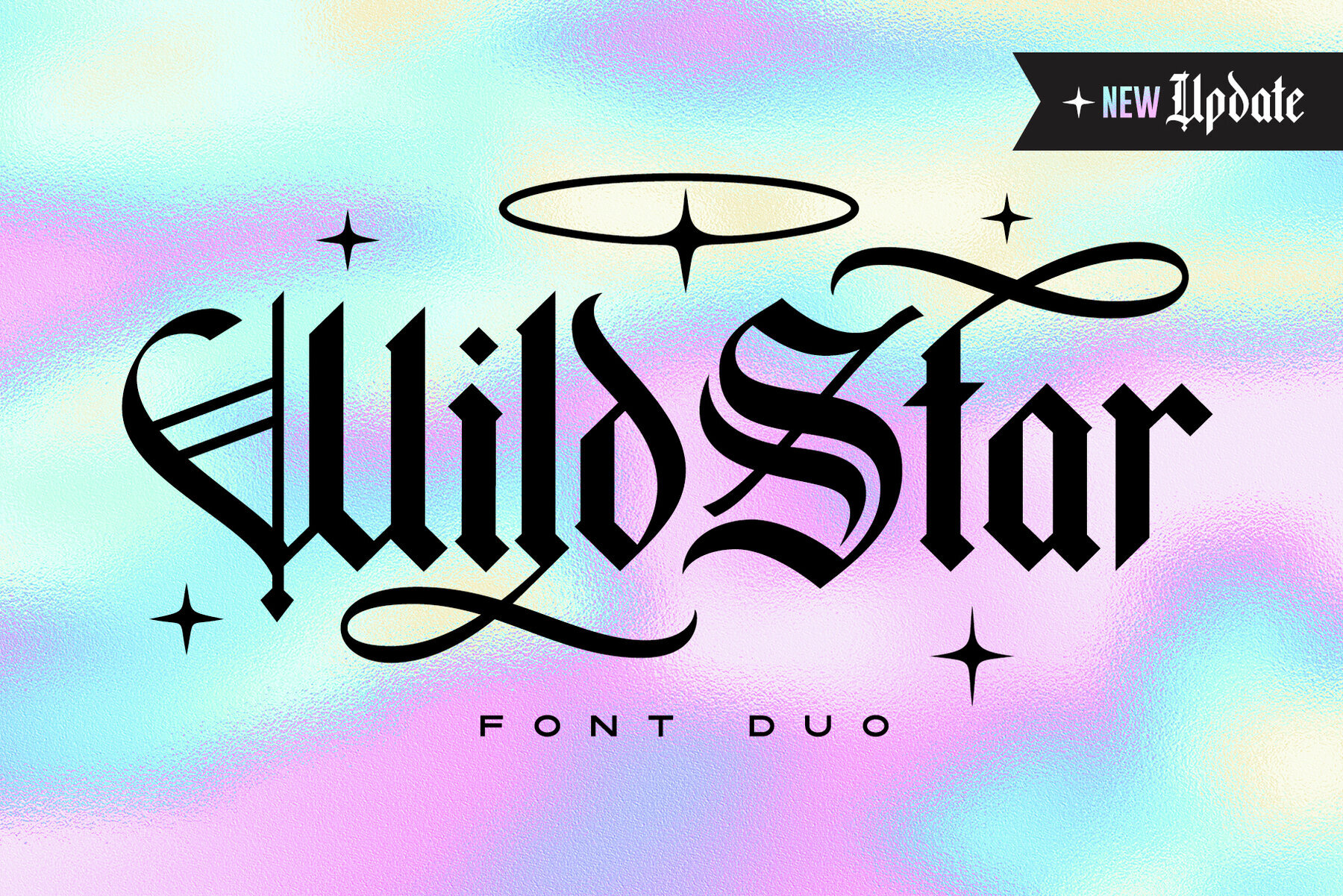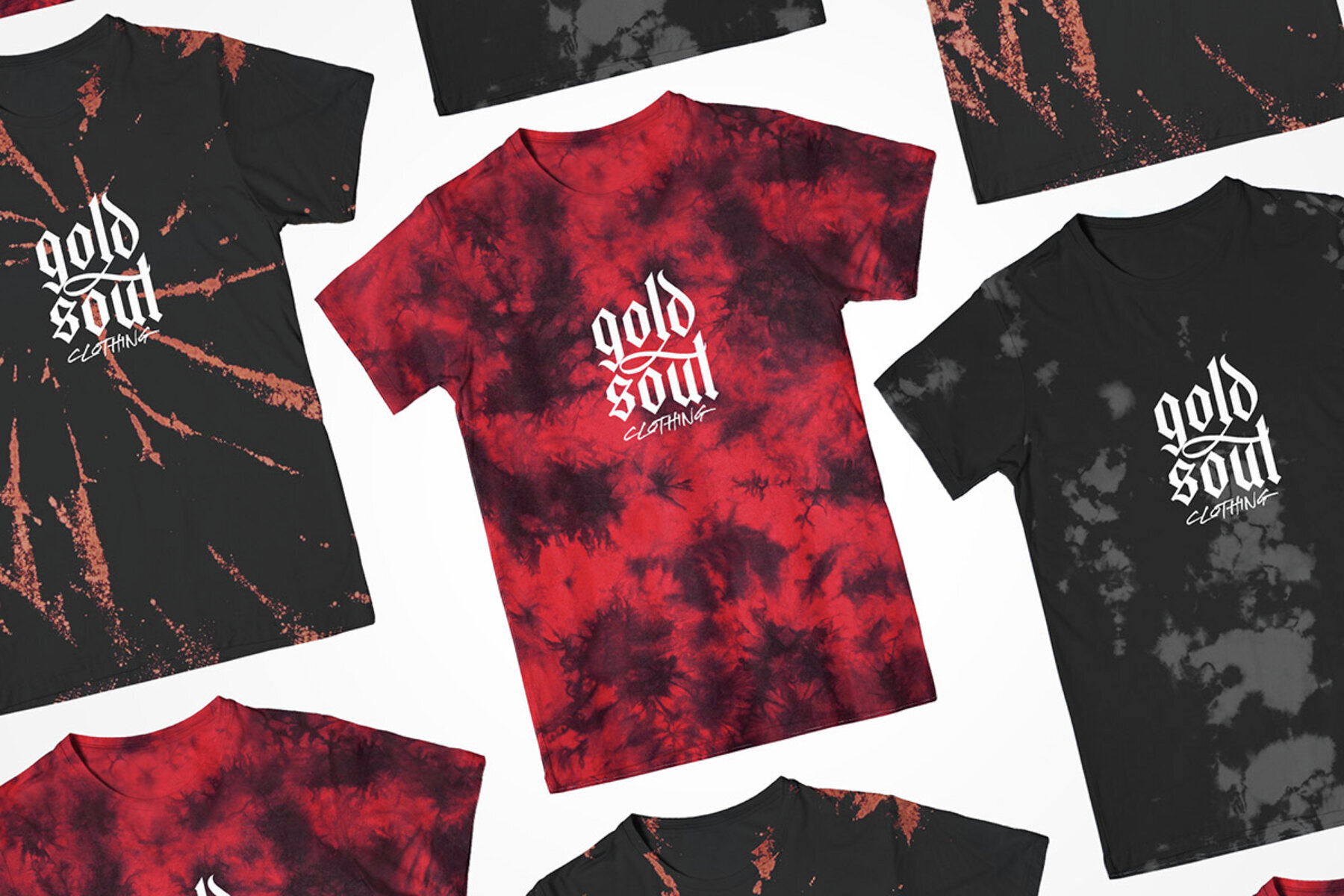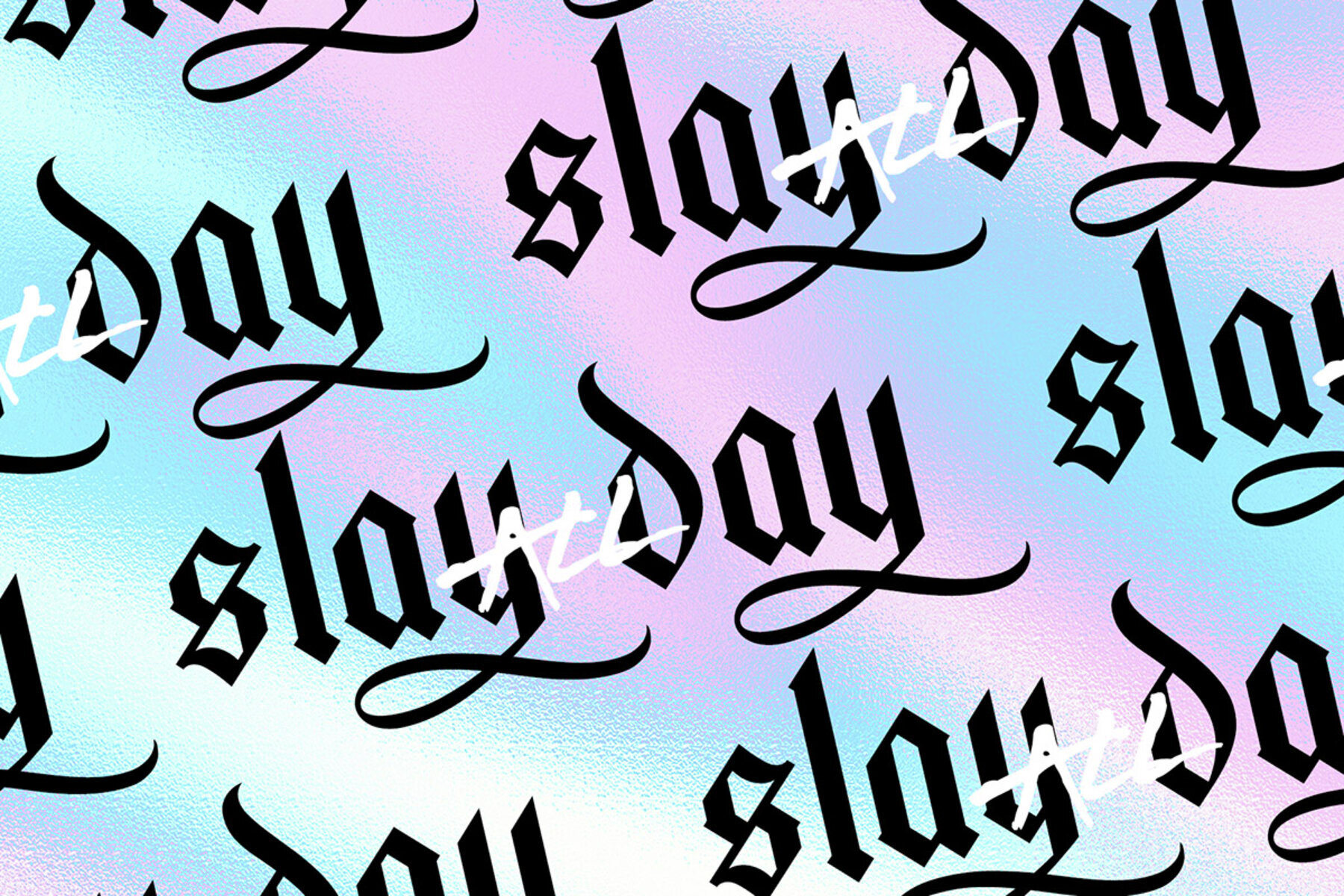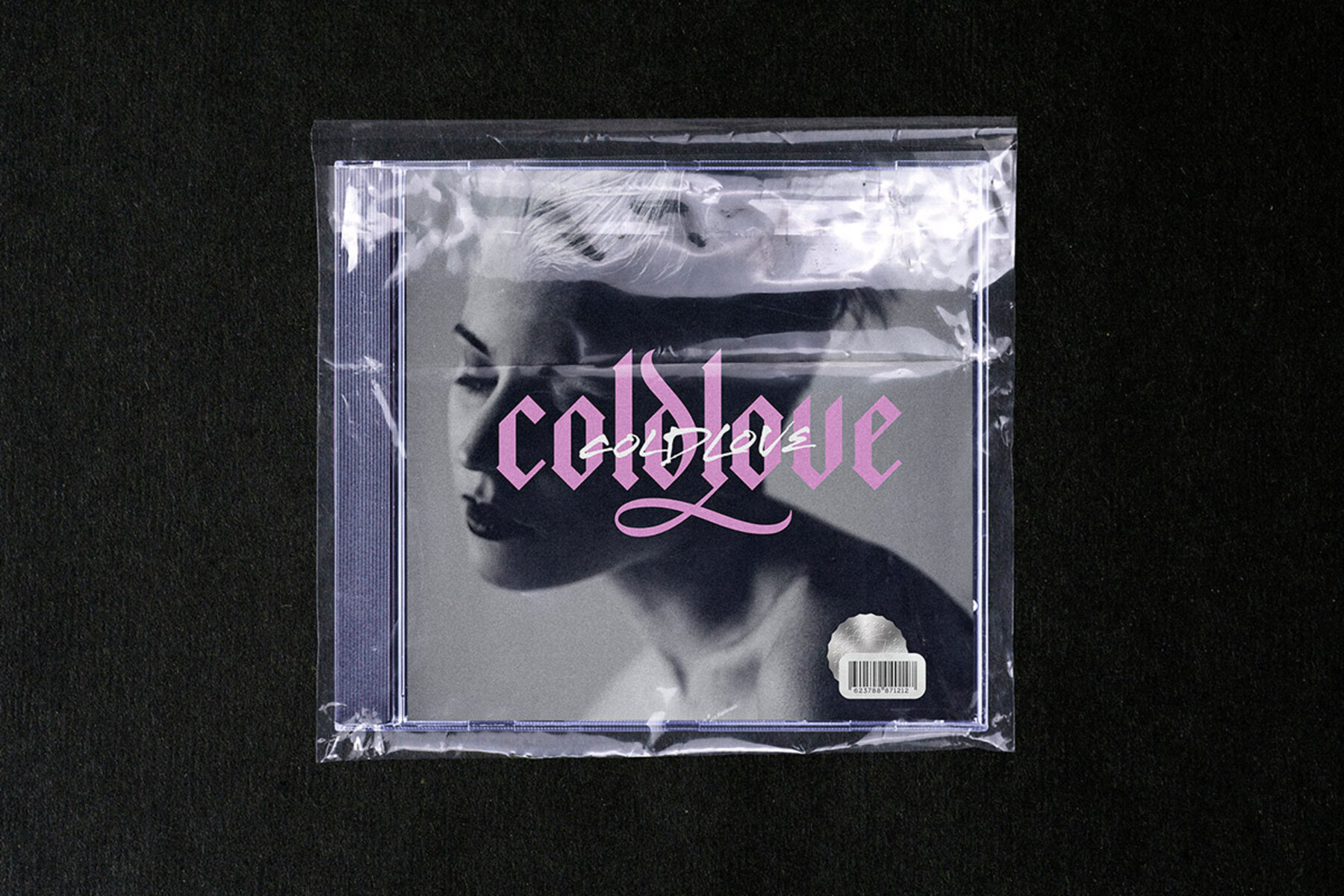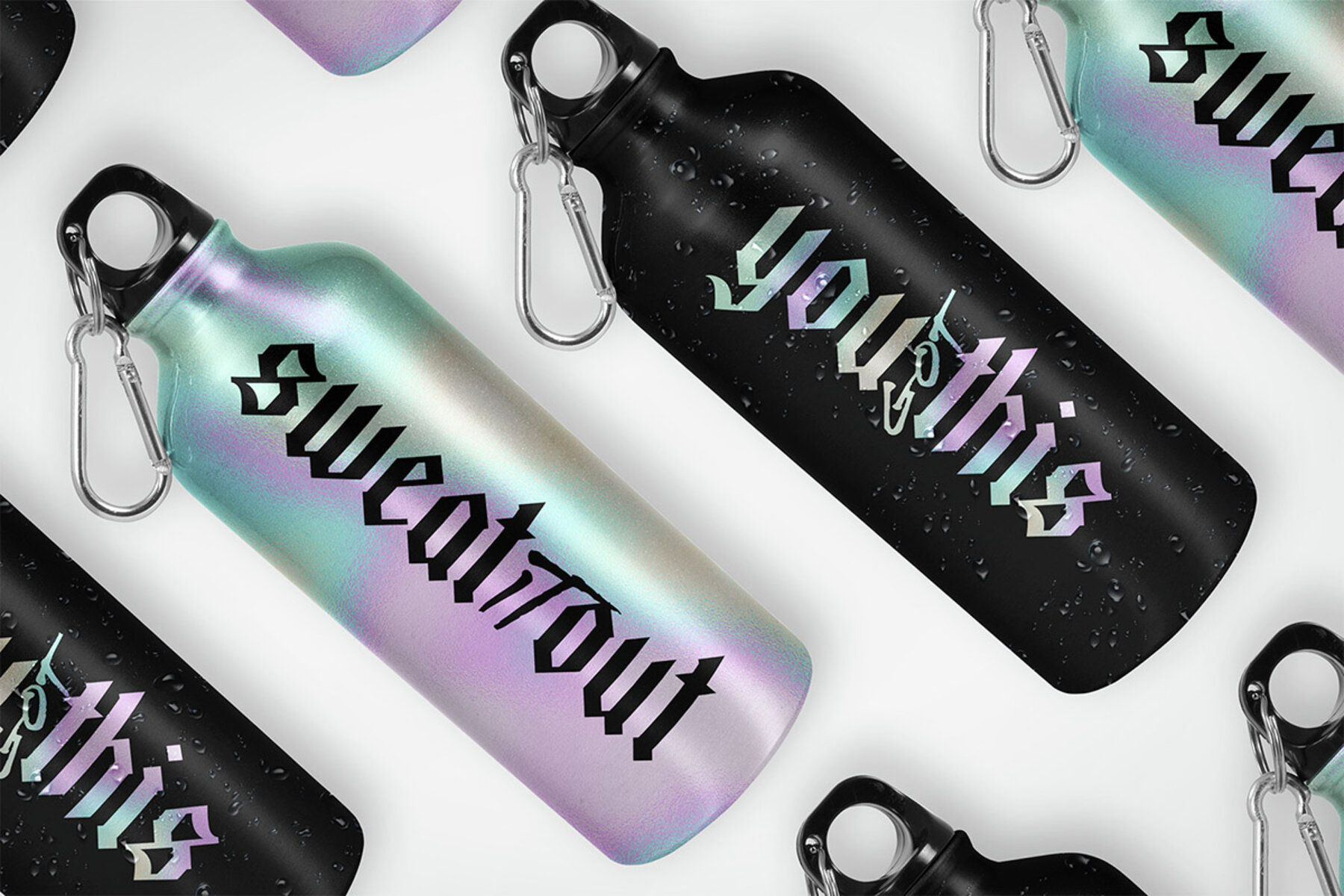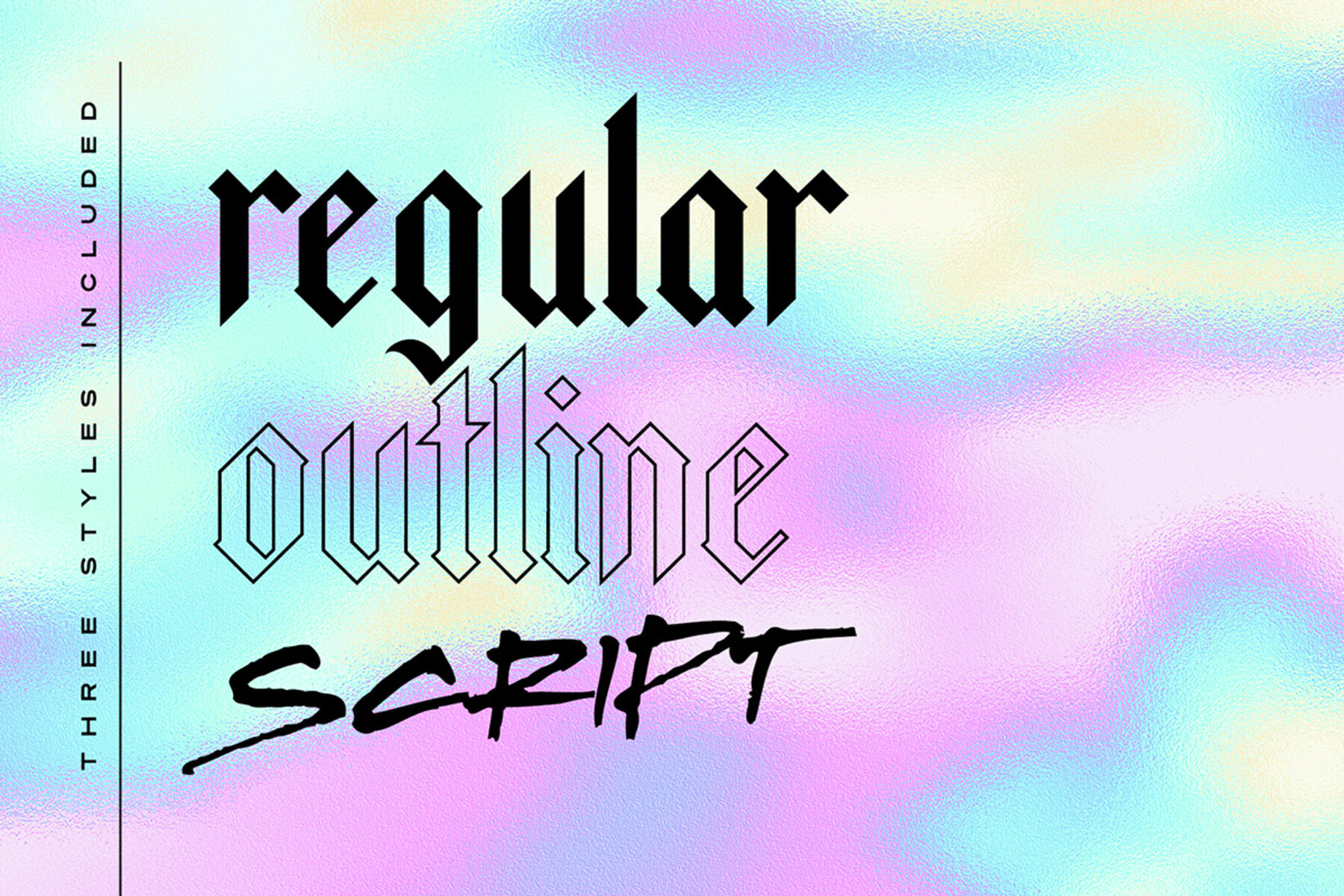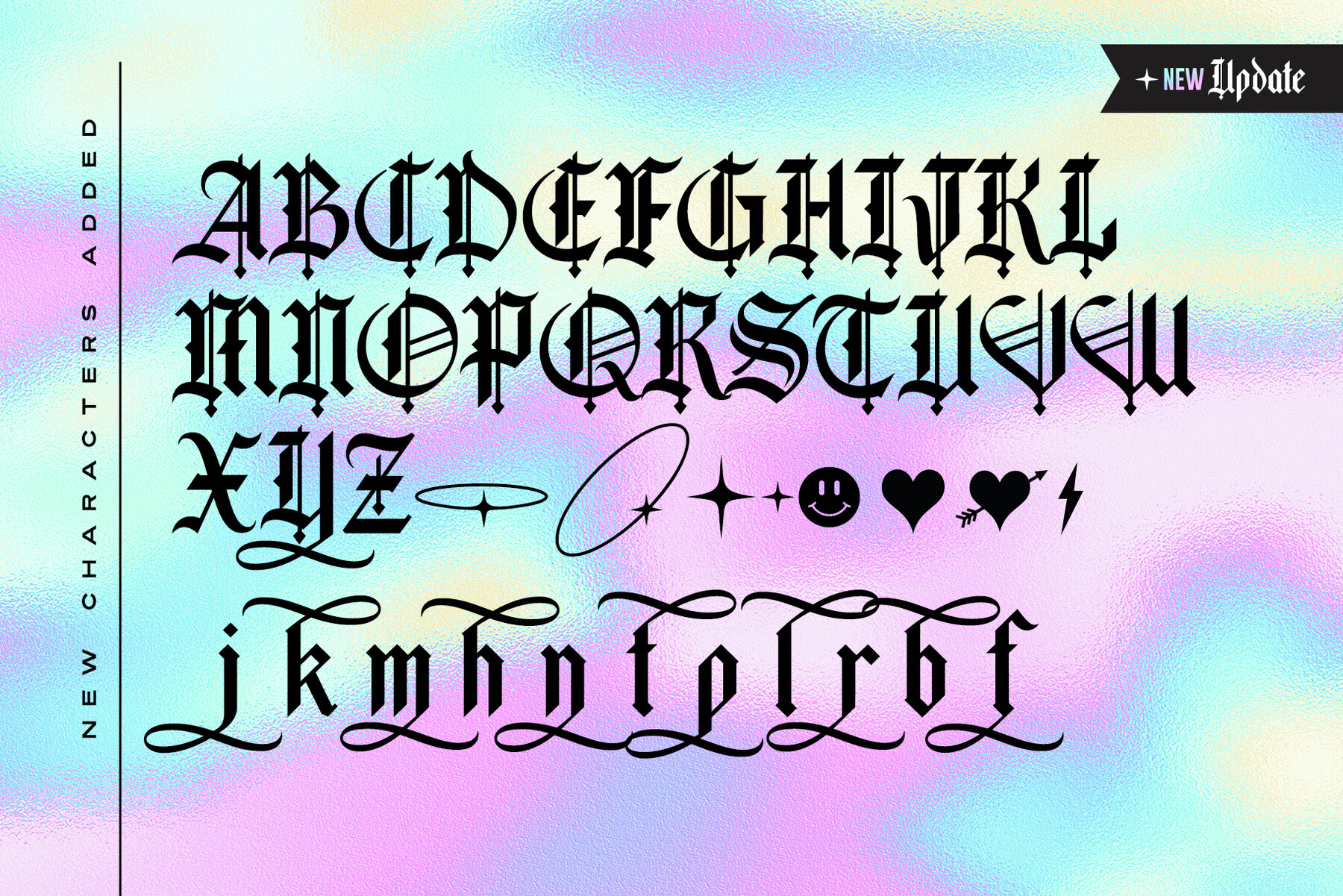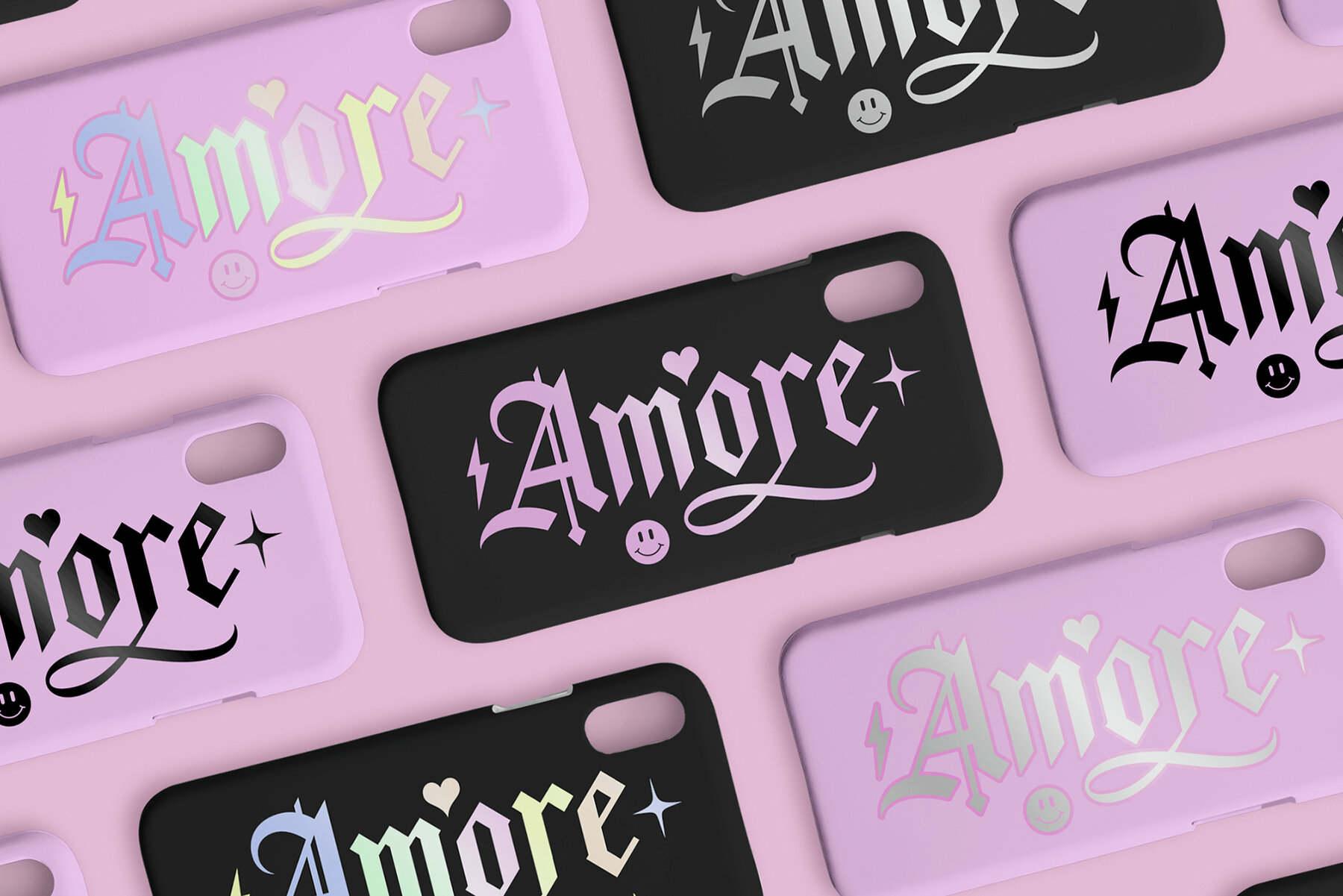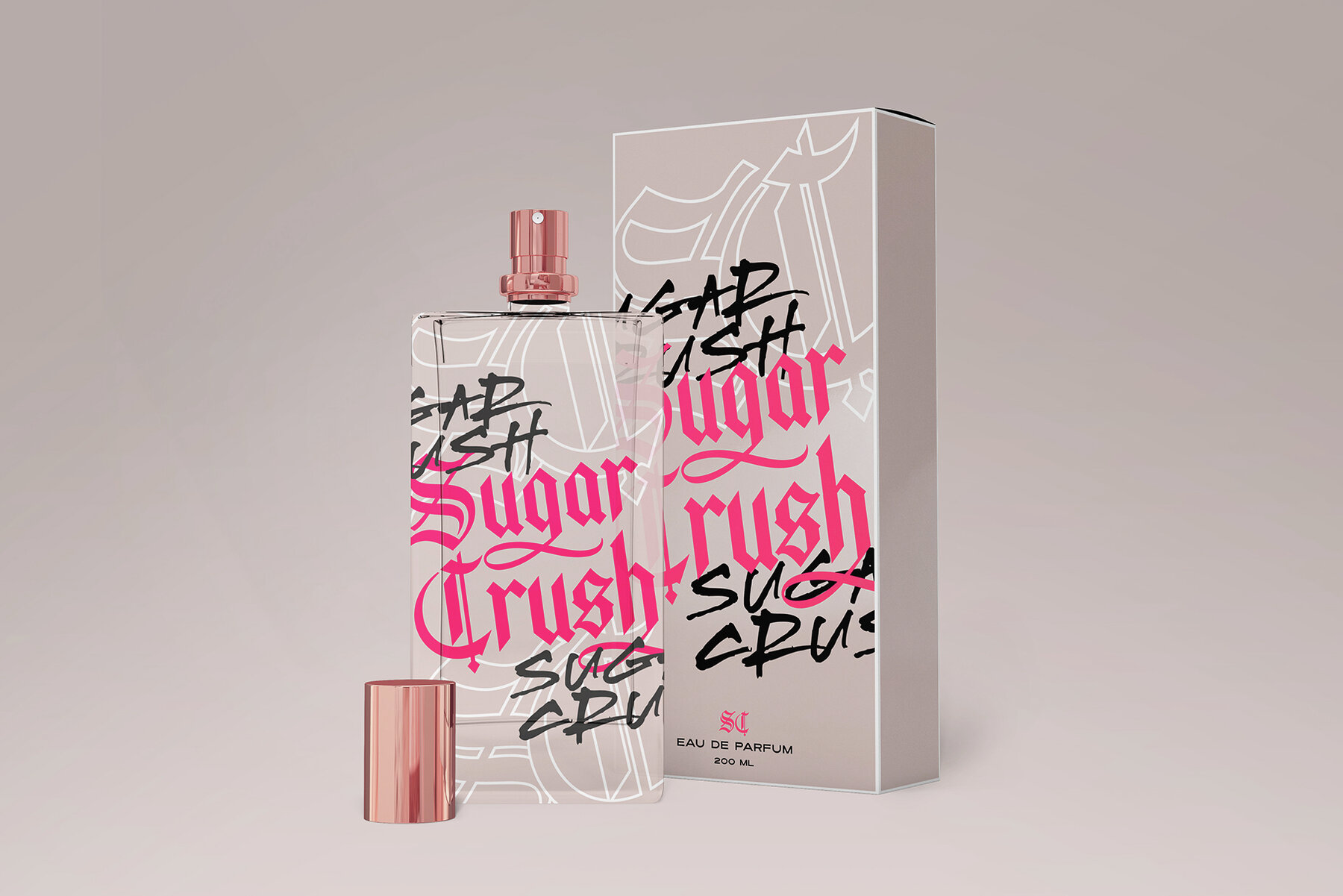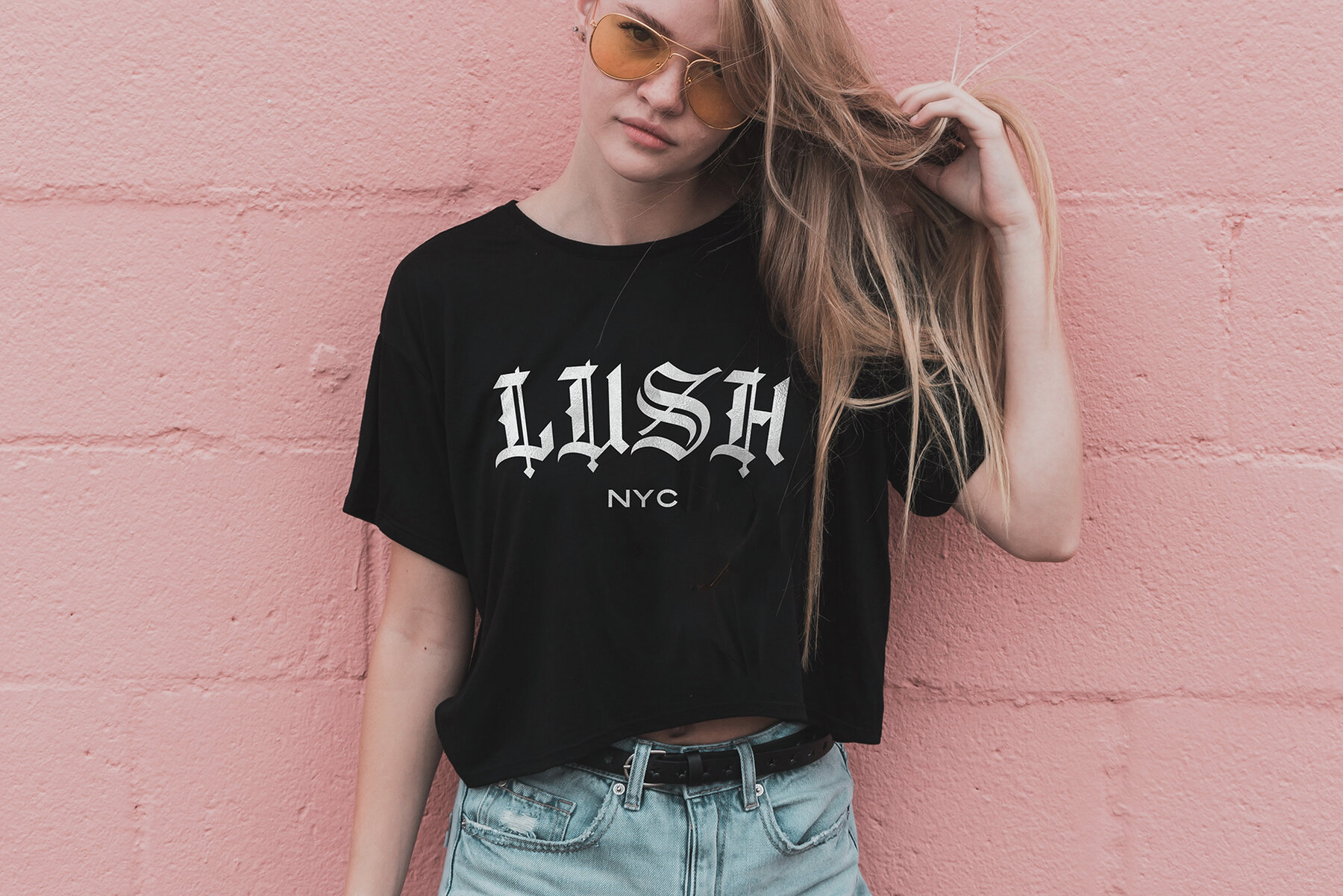
Wild Star Font Duo
Wild Star Font Duo (3 fonts)
Wild Star is a font duo not to be tamed - this pairing of modern blackletter font & unrestrained script font aren't afraid to make your message heard loud & clear. It's a bold choice for merchandise, album artwork, logo designs, quotes & more. The Wild Star Family includes 3 fonts files provided in TTF and OTF formats; Wild Star • A modern blackletter font containing upper and lowercase characters, plus numerals and a full range of punctuation. There are 17 alternate stylistic versions for letters g, l, y, p, k, f, h, n, t, m, b, r, h, j which contain a bottom or top flourish. To access these, simply turn on 'Stylistic Alternates', or access them via a Glyphs panel. Type the following characters to generate one of 8 fun icons { } [ ] ( ) . (The standard versions of these characters can be found in the Glyphs panel). Wild Star Outline • A second version of the Wild Star font with an outline effect added. Wild Star Script • A rough, hand-scratched font containing 2 sets of uppercase characters, numerals and a full set of punctuation. Simply turn your caps lock on & off to switch between the 2 sets of characters.